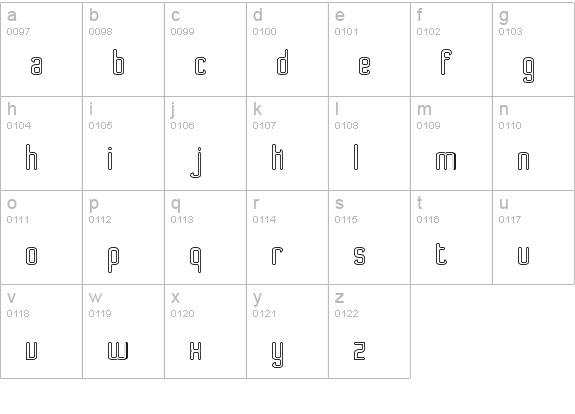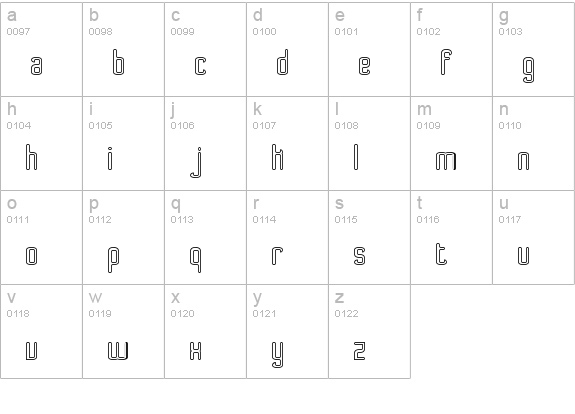
Bend 2 Squares OL1 BRK Font Details
Bend 2 Squares OL1 BRK font is a unique and eye-catching display typeface that combines modern geometric shapes with a playful twist. This font features square letters with rounded corners, giving it a contemporary and edgy look. The bold and striking design of Bend 2 Squares OL1 BRK font makes it perfect for headlines, logos, posters, and other creative projects. What's even better is that Bend 2 Squares OL1 BRK font is available for free download at FontsMarket.com. This means you can easily access this stylish font and use it in your designs without any cost. Don't miss out on the opportunity to add a touch of modern flair to your projects with Bend 2 Squares OL1 BRK font!